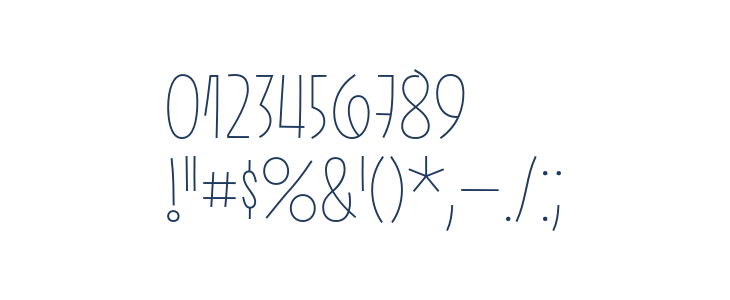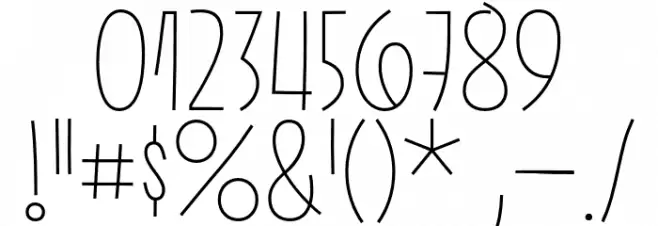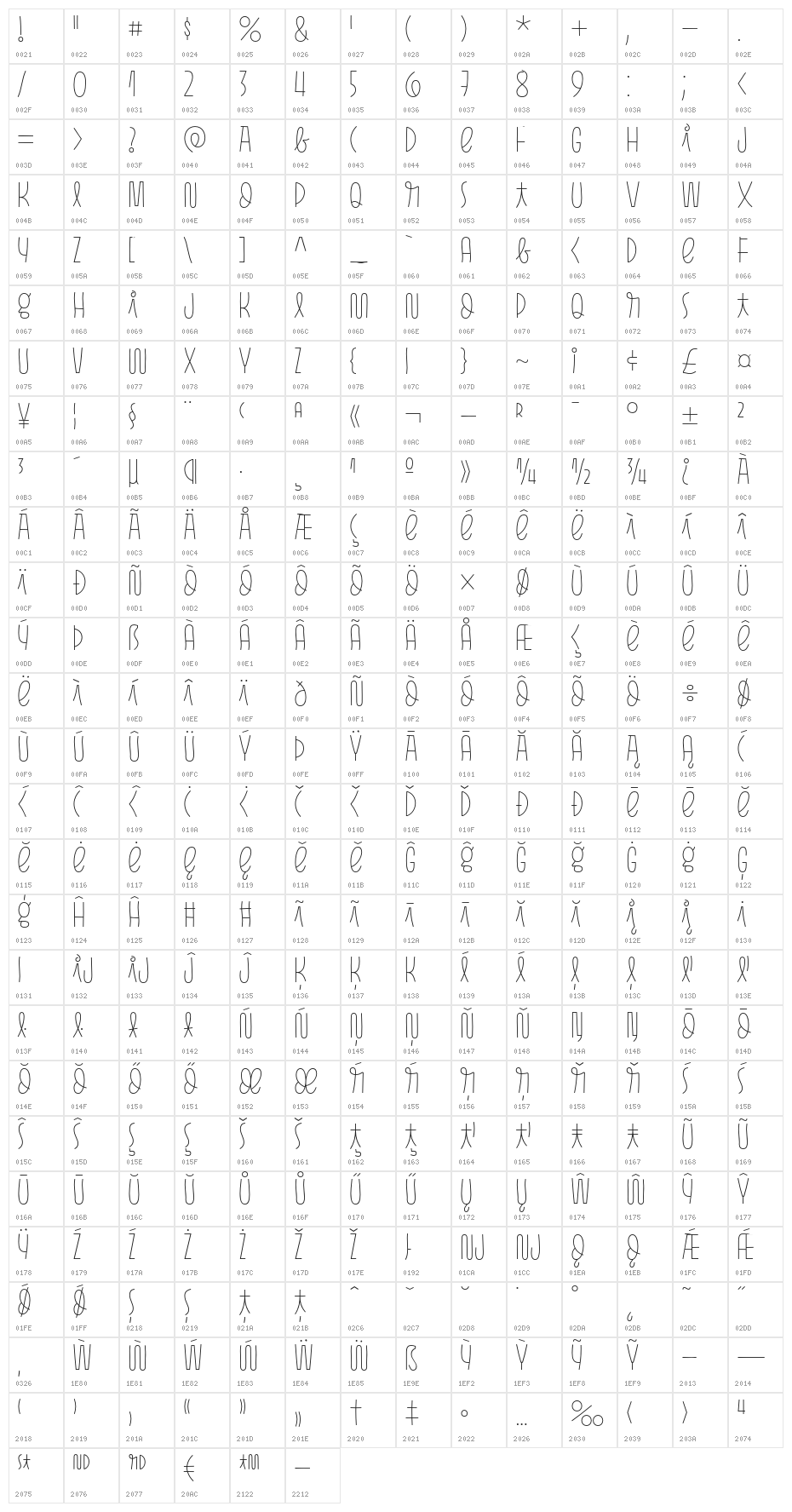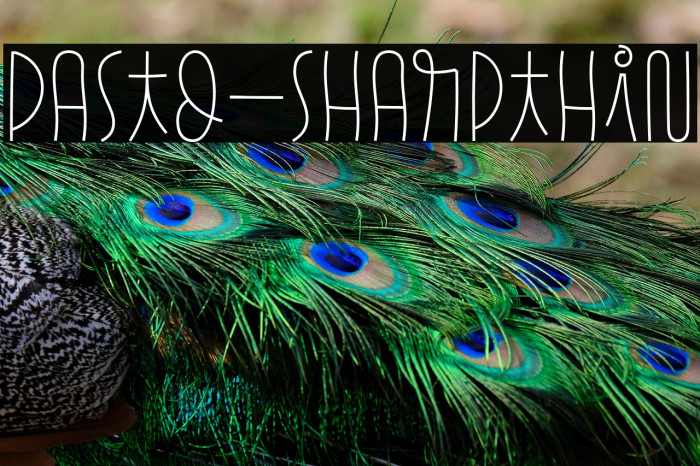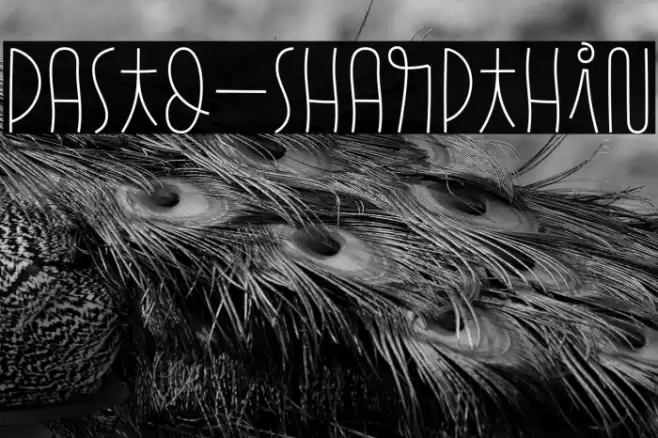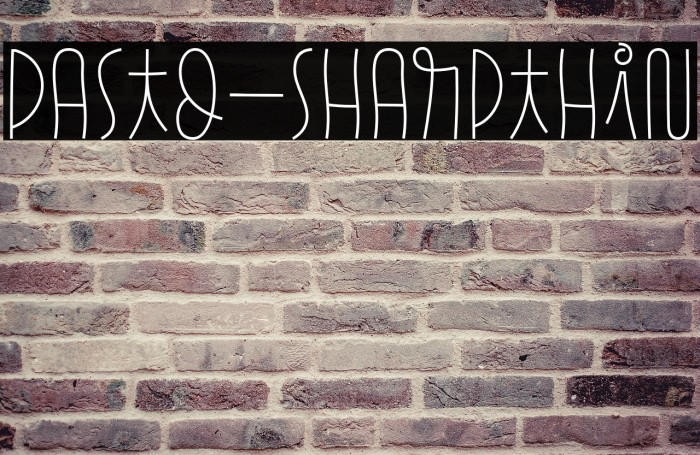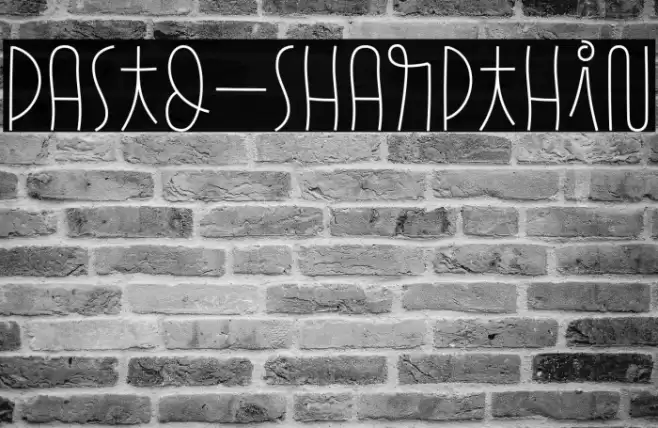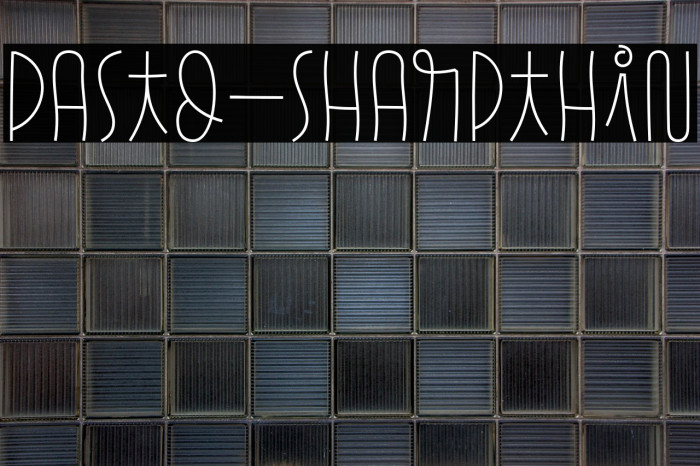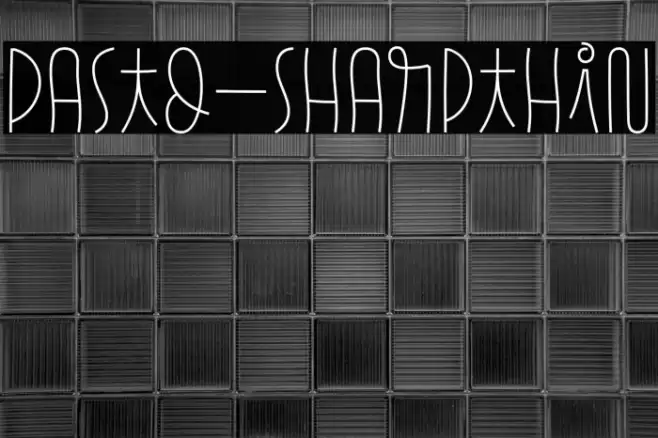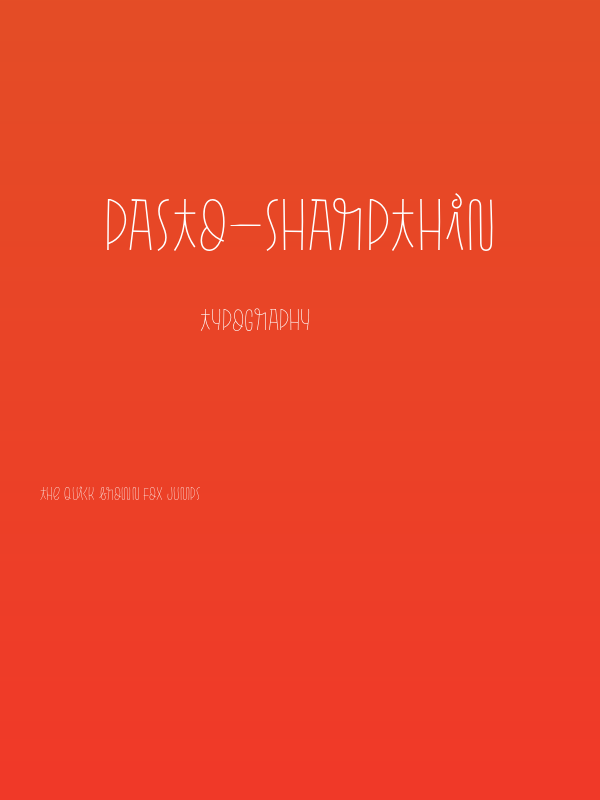
Pasto-SharpThin Font
Pasto-SharpThin Description
This font features a unique and playful design with elongated, thin strokes that give it a whimsical and modern appearance. The characters are crafted with a sense of fluidity and movement, often incorporating unexpected curves and loops that add a distinctive flair. The uppercase and lowercase letters maintain a consistent style, with the uppercase being slightly more structured. The numbers and special characters follow the same playful aesthetic, making them visually cohesive with the alphabet. This font's thin lines and creative shapes make it stand out, offering a fresh take on traditional letterforms.
| Proposed Projects | Ideal for creative projects such as children's books, playful branding, artistic posters, and modern invitations. |